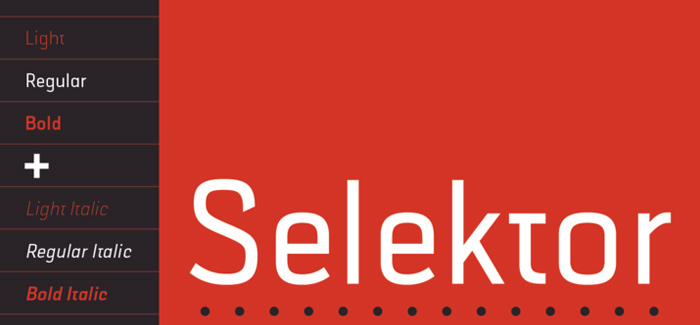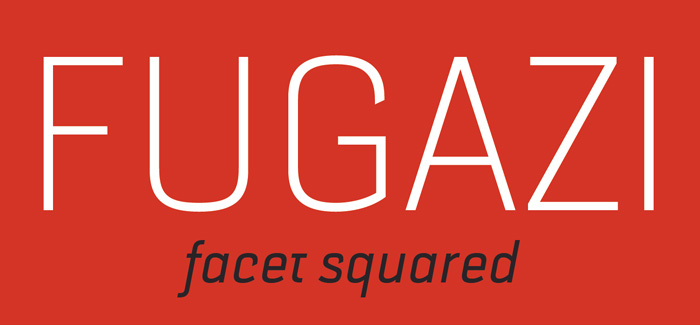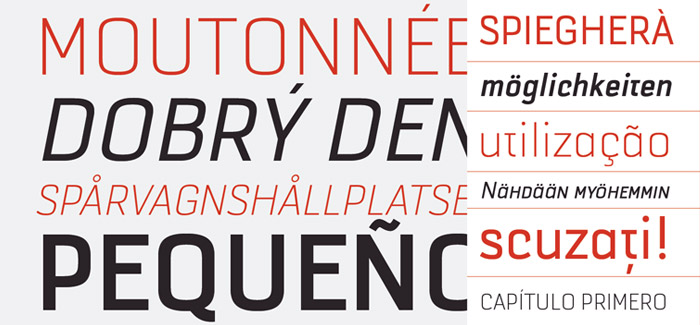
Selektor font
Selektor font is a geometrical sans designed by Dušan Jelesijević and published by Tour De Force.
It is fully applicable in all kinds of publications, from long texts in paragraphs to titles and product names. Inspired and after that designed with charm of technical letters, it contains a few letters with specific endings that gives Selektor a peculiar impression. Global overview of Selektor says it’s a neutral, corporate, stable, well balanced font family, but not cold and heartless to leave readers without remembrance on its characteristics.
Comes with 3 weights – Light, Regular and Bold and matching Italics.
All family members include Small Caps and Fractions as additional OpenType features.
Supported languages: Albanian, Bosnian, Croatian, Czech, Danish, Dutch, English, Esperanto, Estonian, Faroese, French, German, Hungarian, Icelandic, Italian, Latvian, Lithuanian, Malagasy, Maltese, Norwegian, Polish, Romanian, Serbian, Slovak, Slovenian, Spanish, Swedish, Turkish